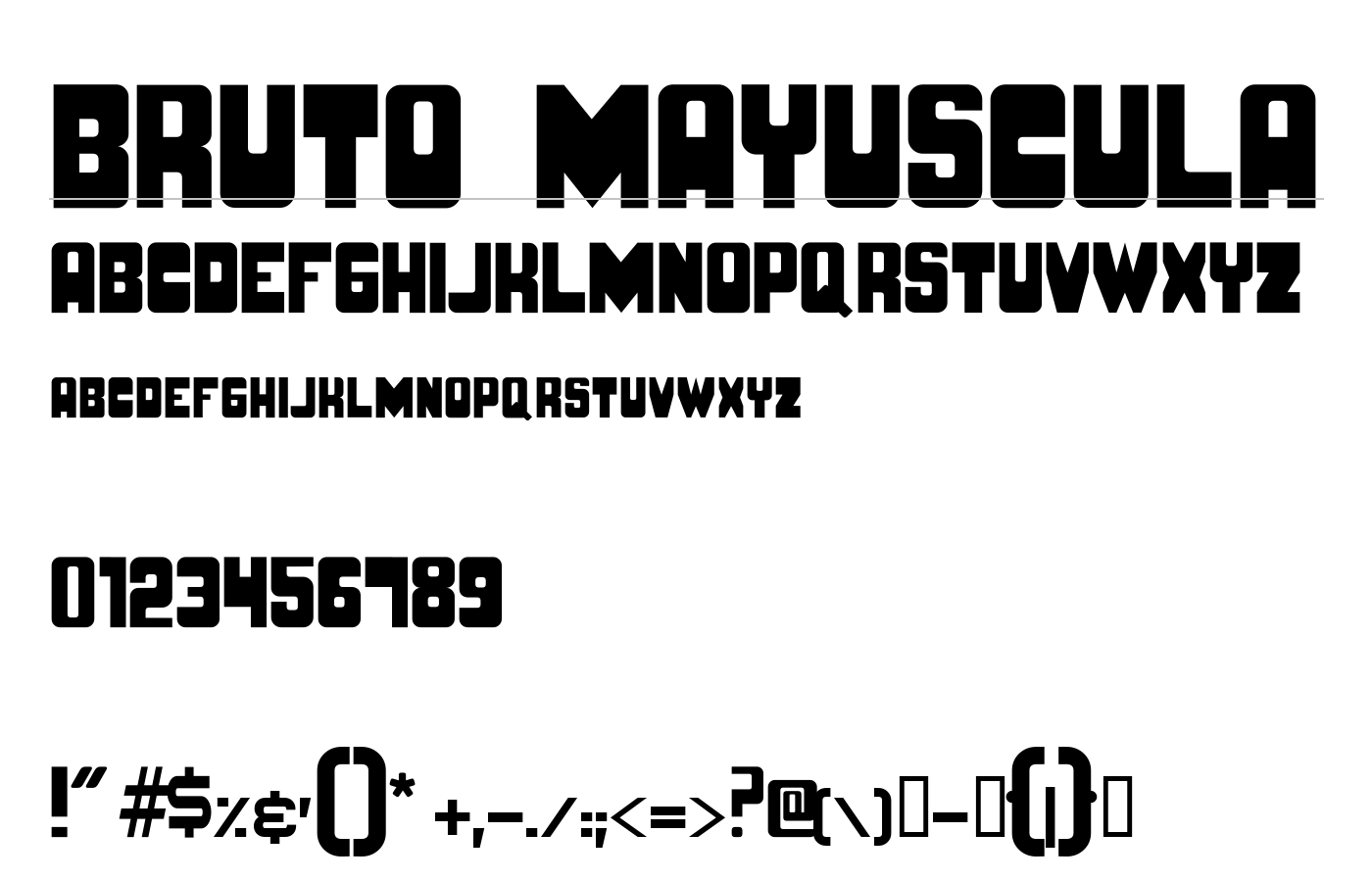
BRUTO MAYUSCULA is a bold, condensed sans serif font with a strong, industrial feel. Its heavy weight and tight spacing create a powerful presence, while the squared, blocky letterforms with minimal contrast give it a modern and robust character. This font works best for impactful headlines, logos, and branding where a confident, no-nonsense look is desired.
BRUTO MAYUSCULA Font